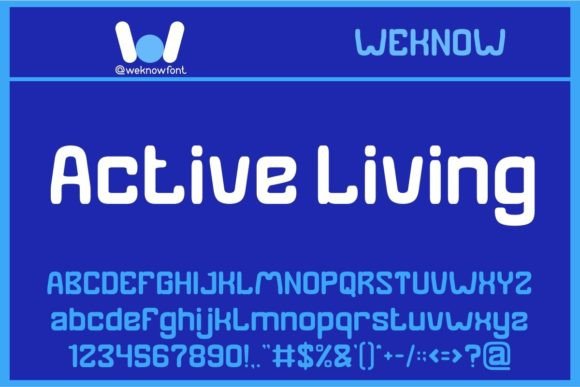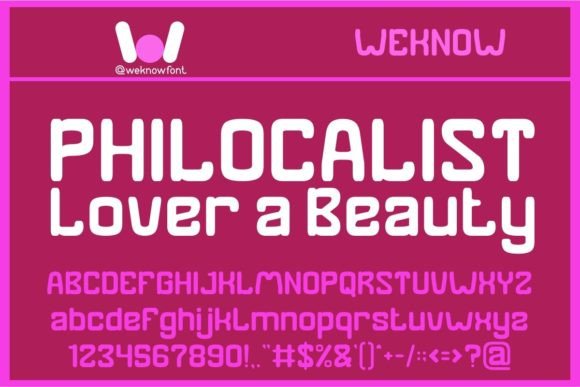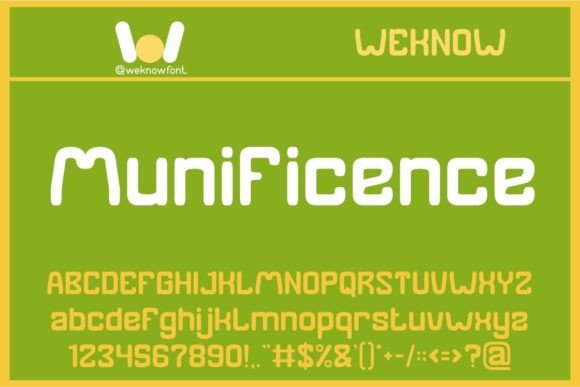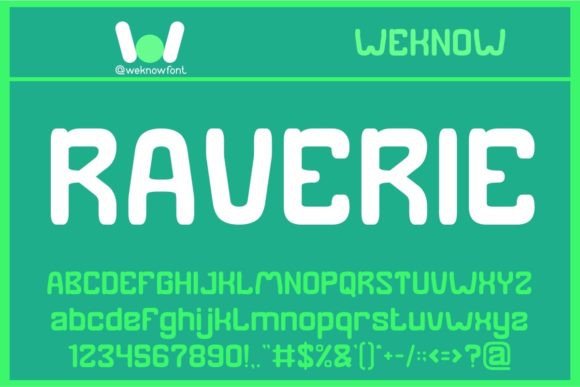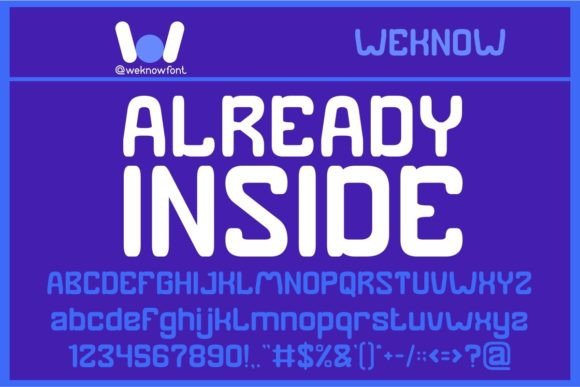
Unleash Your Creativity with Already Inside Font
Are you a designer, crafty enthusiast, or simply someone who loves to dabble in creative projects? Look no further! You’re about to discover the perfect addition to your typography arsenal: the Already Inside font. This stunning display font is not just a visual treat but a versatile tool that can elevate a wide range of design projects.
What is Already Inside Font?
Already Inside is a fancy and cool display font, meticulously crafted to make your designs stand out. Its unique style and charm make it an excellent choice for various applications, from logos and logotypes to headlines, corporate identities, and brand identities. Whether you’re working on a project for the apparel industry, creating a poster, movie, game, magazine, book, comic, cartoon, or even designing for digital platforms like YouTube, Instagram, or a website, Already Inside font is the perfect companion.
Key Features of Already Inside Font
- Versatility: One of the key advantages of Already Inside font is its incredible versatility. It can be used in both digital and print projects, making it a valuable asset for any designer.
- Aesthetic Appeal: With its fancy and cool style, this font adds a touch of elegance and modernity to any design. It’s sure to capture the attention of your audience and leave a lasting impression.
- Easy to Read: Despite its decorative nature, Already Inside font remains clear and legible, ensuring your message is conveyed effectively.
- Customizable: The font comes with a range of features that allow for customization, enabling you to tailor it to fit your project’s specific needs.
Applications of Already Inside Font
The applications of Already Inside font are vast and varied. Here are some of the most popular uses:
- Logo and Logotype Design: Create a memorable brand identity with a unique logo or logotype.
- Headlines and Titles: Add a professional touch to your articles, blog posts, or advertising materials.
- Corporate and Brand Identity: Enhance your company’s visual identity with a distinctive font.
- Apparel Industry: Design captivating t-shirt prints, hoodies, and other apparel.
- Digital Content: Elevate your YouTube videos, Instagram posts, and website content with stylish text.
- Print Media: Use it in posters, flyers, magazines, books, comics, and cartoons for a standout effect.
Why Choose Already Inside Font?
In a world where design plays a crucial role in communication, choosing the right font can make all the difference. Already Inside font stands out from the crowd due to its unique blend of style, versatility, and readability. It’s not just a font; it’s a design statement that can transform your projects and set them apart.
Tips for Using Already Inside Font
To get the most out of Already Inside font, consider the following tips:
- Pair it Wisely: Combine Already Inside font with complementary fonts to create visual harmony.
- Experiment with Sizes: Play with different font sizes to emphasize certain words or phrases.
- Use it Sparingly: While it’s tempting to use Already Inside font throughout your design, use it strategically to maintain impact.
Already Inside font is more than just a fancy and cool display font; it’s a creative tool that can bring your designs to life. Whether you’re a professional designer or a hobbyist, this font offers endless possibilities for expressing your creativity. With its versatility, aesthetic appeal, and ease of use, Already Inside font is set to become your go-to choice for a wide range of projects. So, why wait? Dive into the world of Already Inside font and discover a new dimension of design possibilities.